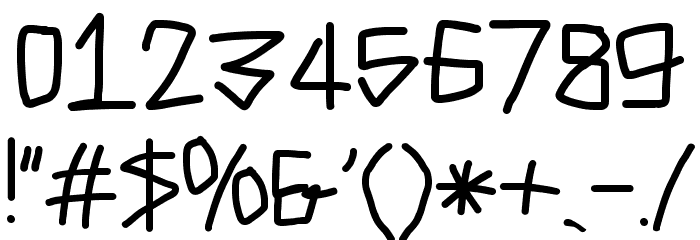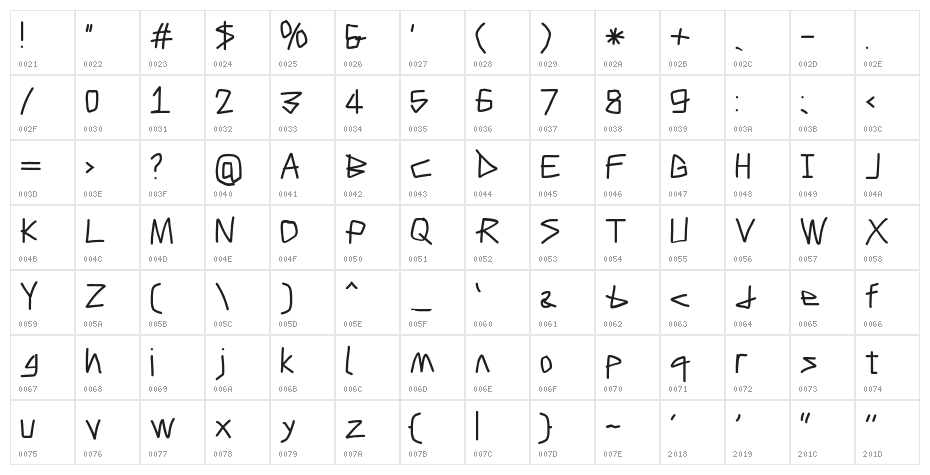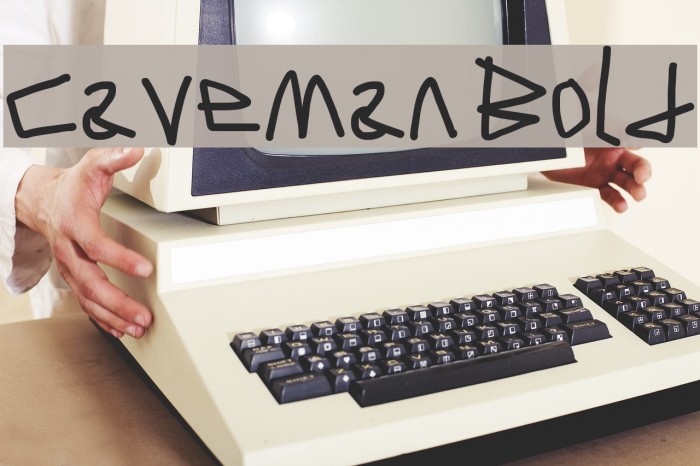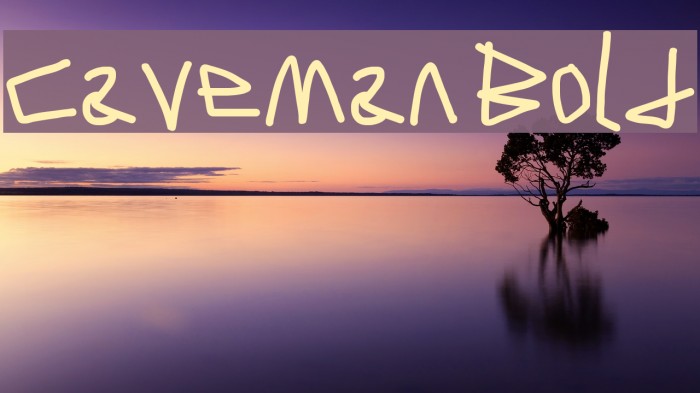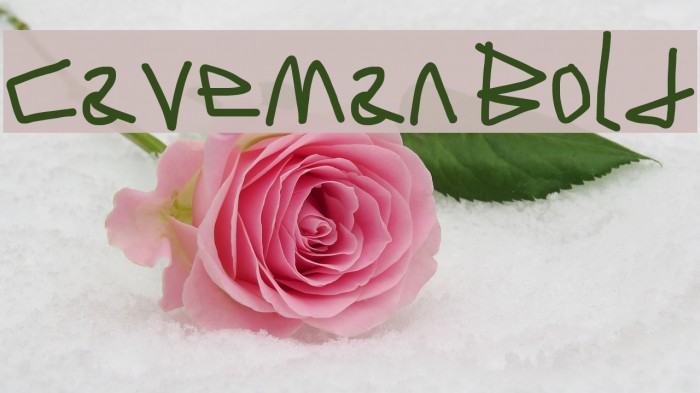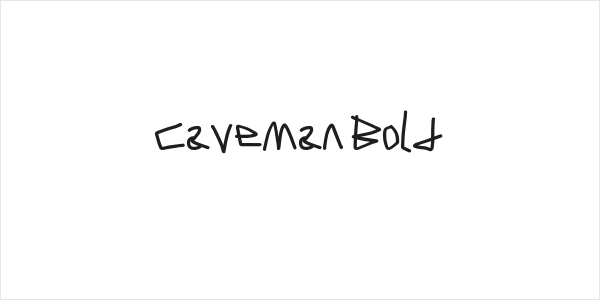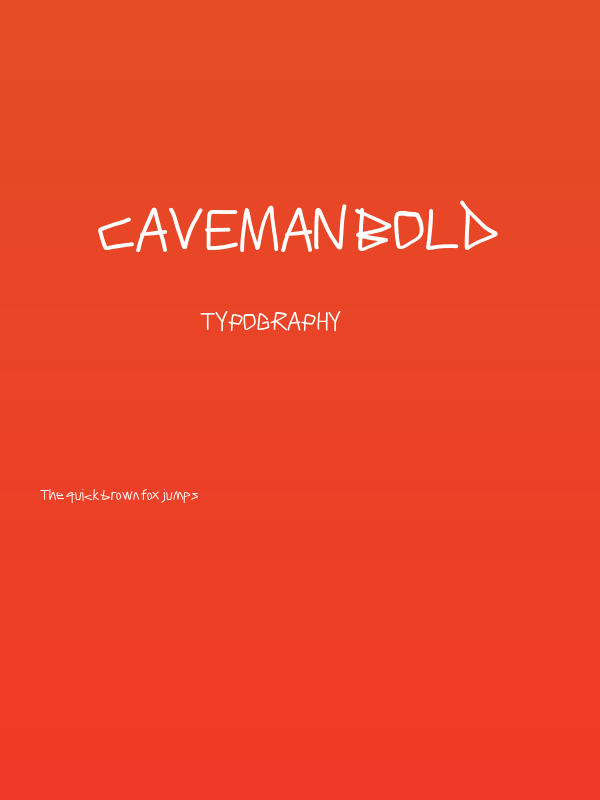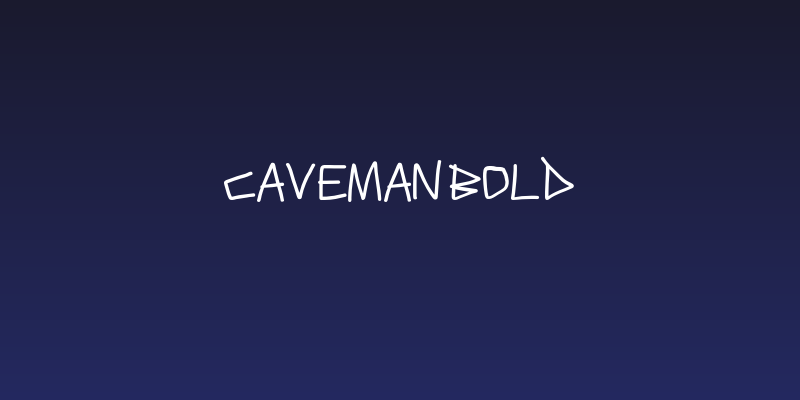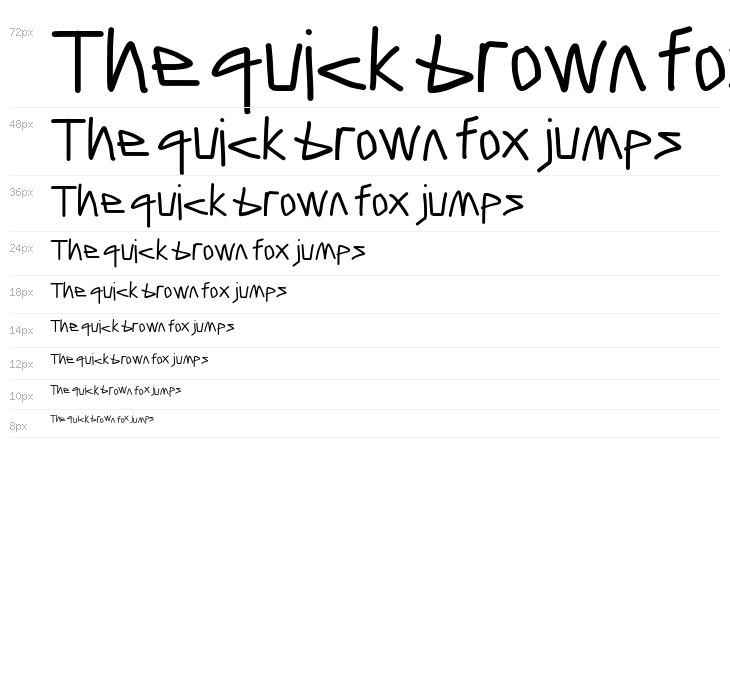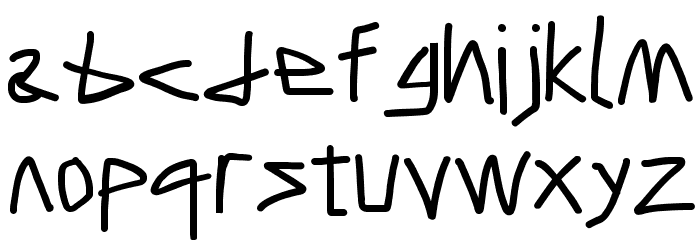
Caveman Bold Font
Caveman Bold Description
This font features a bold, hand-drawn style that evokes a primitive, rugged aesthetic. The characters are uneven and slightly irregular, giving them a playful and informal appearance. The uppercase and lowercase letters maintain a consistent thickness, contributing to a cohesive look. The numbers and special characters follow the same design principles, ensuring uniformity across all glyphs. The overall impression is one of spontaneity and creativity, making it suitable for projects that require a touch of whimsy or a natural, organic feel.
| Proposed Projects | Ideal for children's books, playful branding, informal posters, and creative projects that require a whimsical touch. |